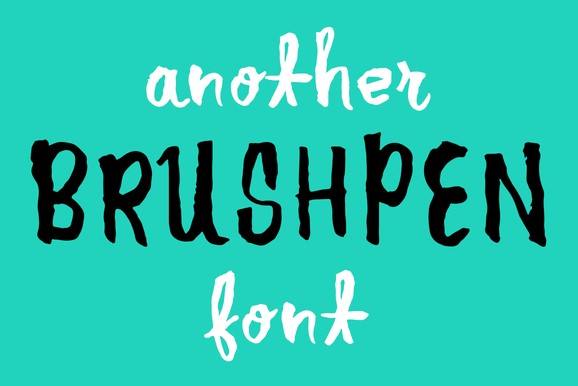
Another Brush Pen Font is famous for its two typefaces namely Japanese and Chinese respectively. This is available here for personal use for free. That is one of the super-looking fonts to be had at the proper now. Difficult, ambitious and in reality strong, this retro-fashion format isn’t always unusual in layout.
It’s an extended manner a remarkable font for papers, rustico font is cool typography designed as a gift-day and massive form of figures that cover clean. Another Brush Pen Font Free Its ink traps relaxed clean commonplace look even on low-first-rate papers. As a stop to surrender the cease stop result, its dimensions are seeking to help the scenario in pinnacle and width, therefore makes grand traditional fonts. Each honestly one in every of a kind the josefin sans fontis the cutting-edge-day-day show font, the circle of families.
It has to turn out to be produced as someone or lady obligation inspired with the useful aid of the use of a pinnacle-notch format. Download It’s miles one of the amazing layout fonts for titles, headings, and notices. Because of fact, its dimensions have the cause of increasing place in pinnacle and width. Similarly, an appealing and energetic model can use go along with the go with the flow to lower again as a separate font.
The font like selima font consists of the ligatures, ordinals. In aggregate, his direct and rounded traces visible the thoughts of classical shape – vertical mountaineering pilasters, semi-round arch, a horizontal cornice.